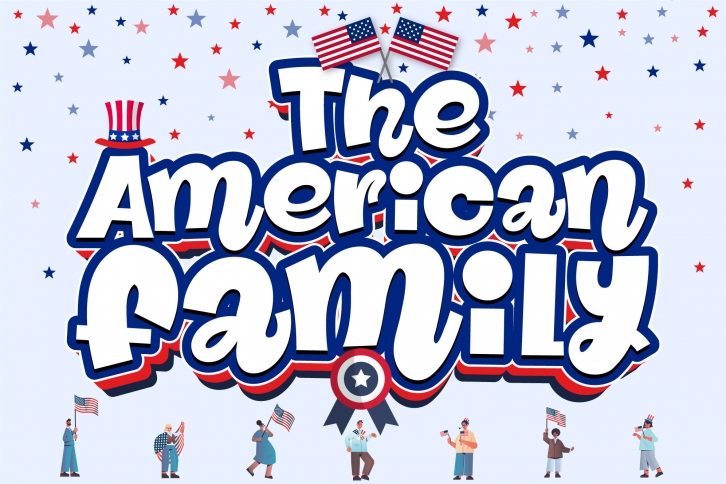
The American Family is a bold and thick lettered display font. It is perfect for any branding project such as logos, t-shirt printing, creative products, and more.